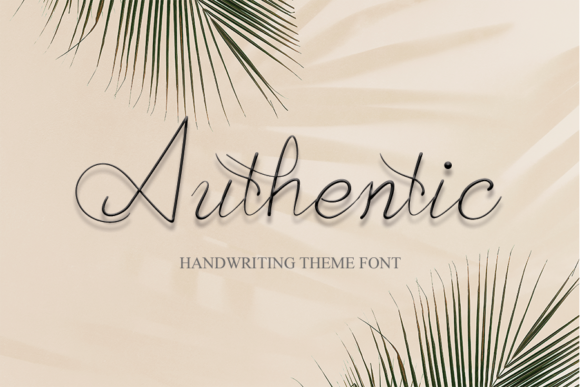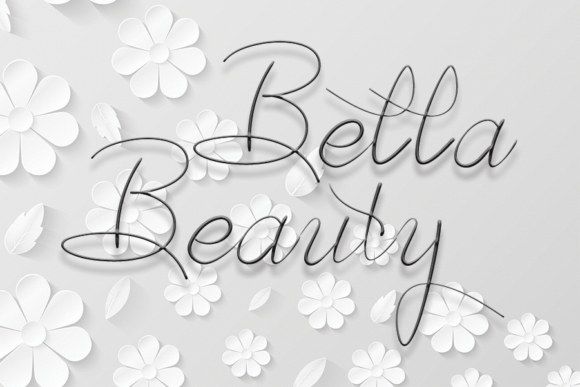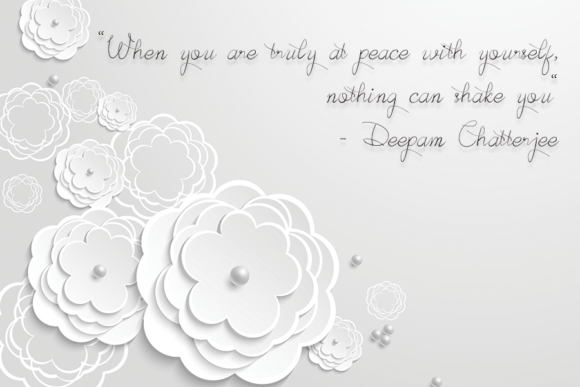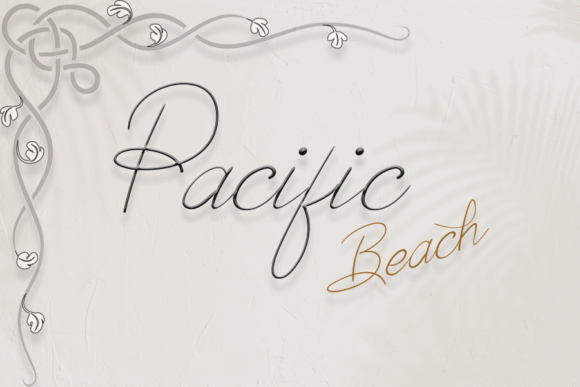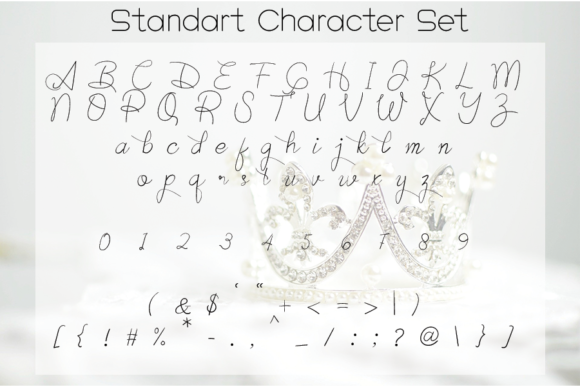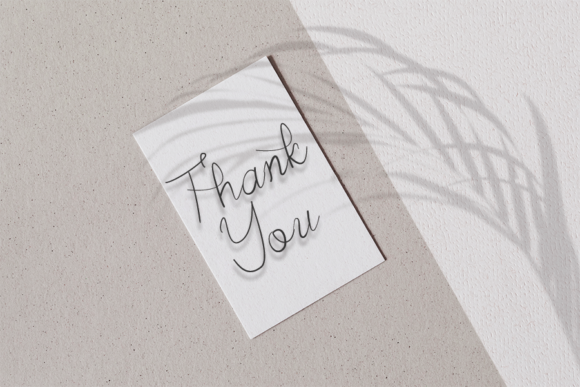
Authentic Font
About Authentic Font
Authentic is a fashionable and flowing script font that adds a touch of style and elegance to your designs. With its carefully crafted and highly detailed letterforms, this font is a valuable asset to your font library and has the potential to enhance any creation.
The flowing and graceful strokes of Authentic make it a versatile font suitable for various topics and design projects. Whether you’re working on branding materials, wedding invitations, packaging, posters, or any other creative endeavor, this font will elevate your designs and give them a sophisticated and polished look.
The neat craftsmanship and attention to detail in Authentic ensure a refined and visually pleasing typography. Every curve and loop is meticulously designed, resulting in a harmonious and balanced flow of characters. This level of precision makes Authentic a reliable choice for enhancing the visual appeal of your creations.
No matter the topic or purpose of your design, Authentic adds a touch of authenticity and charm. Its fashionable and flowing nature brings a sense of elegance to your projects, making them visually captivating and memorable.